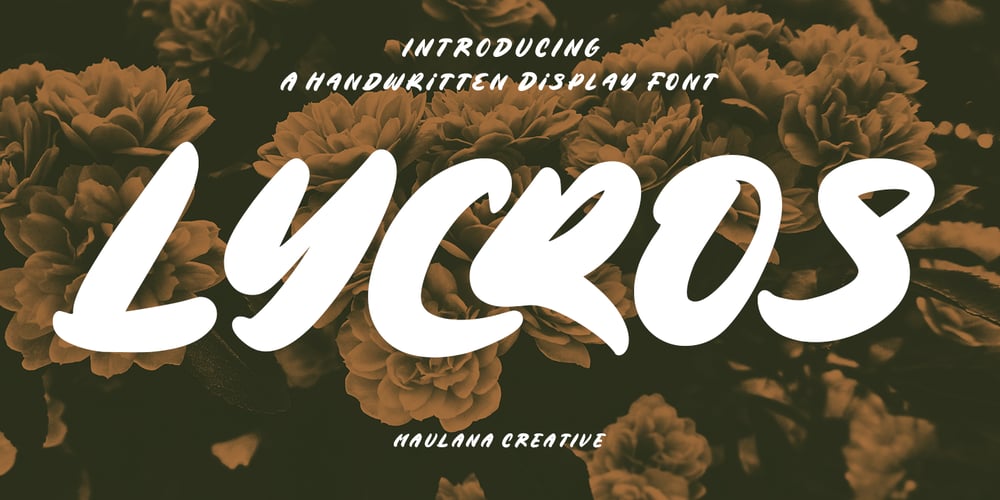
MC Lycros Font Family was designed by Gilang Maulana and published by Maulana Creative. MC Lycros contains 1 styles and family package options. Lycros is a slanted handwritten font. With medium clean brush stroke, fun character with a bit of ligatures and alternates. To give you an extra creative work. Lycros font support multilingual more than 100+ language. This font is good for logo design, Social media, Movie Titles, Books Titles, a short text even a long text letter and good for your secondary text font with sans or serif. Make a stunning work with Lycros font. Cheers, Maulana Creative